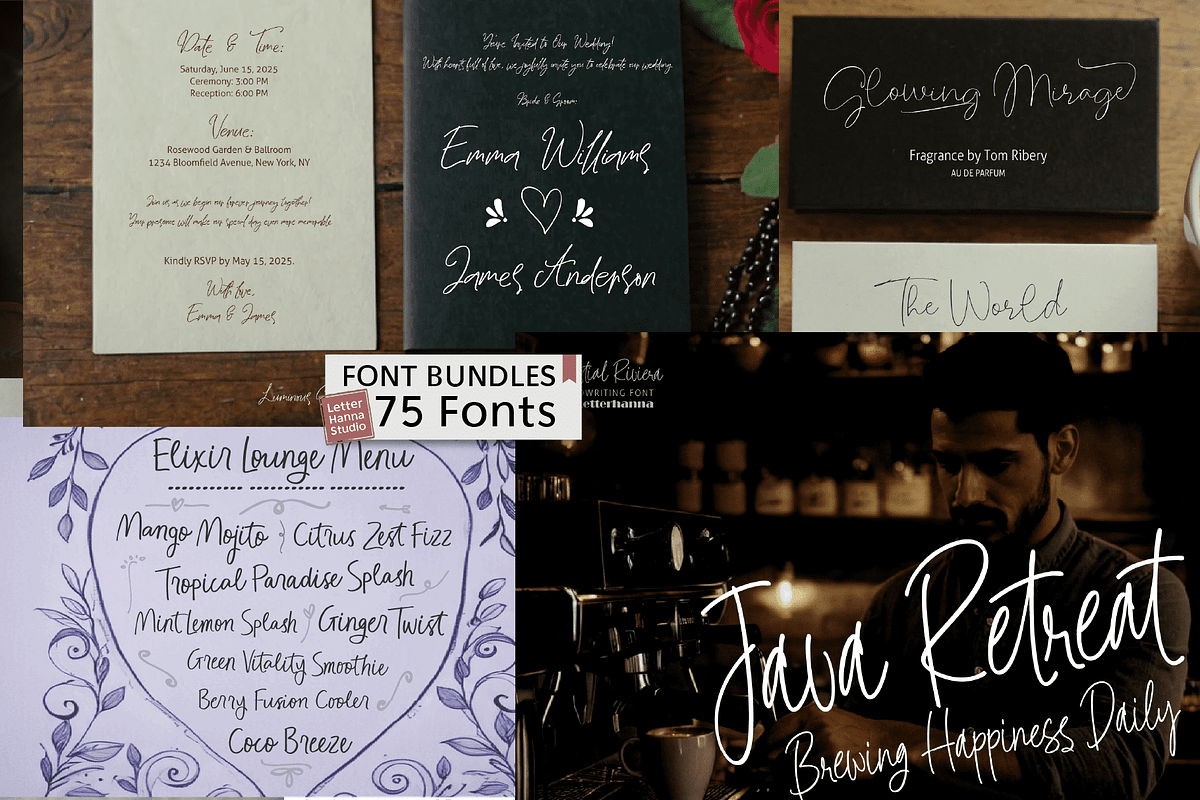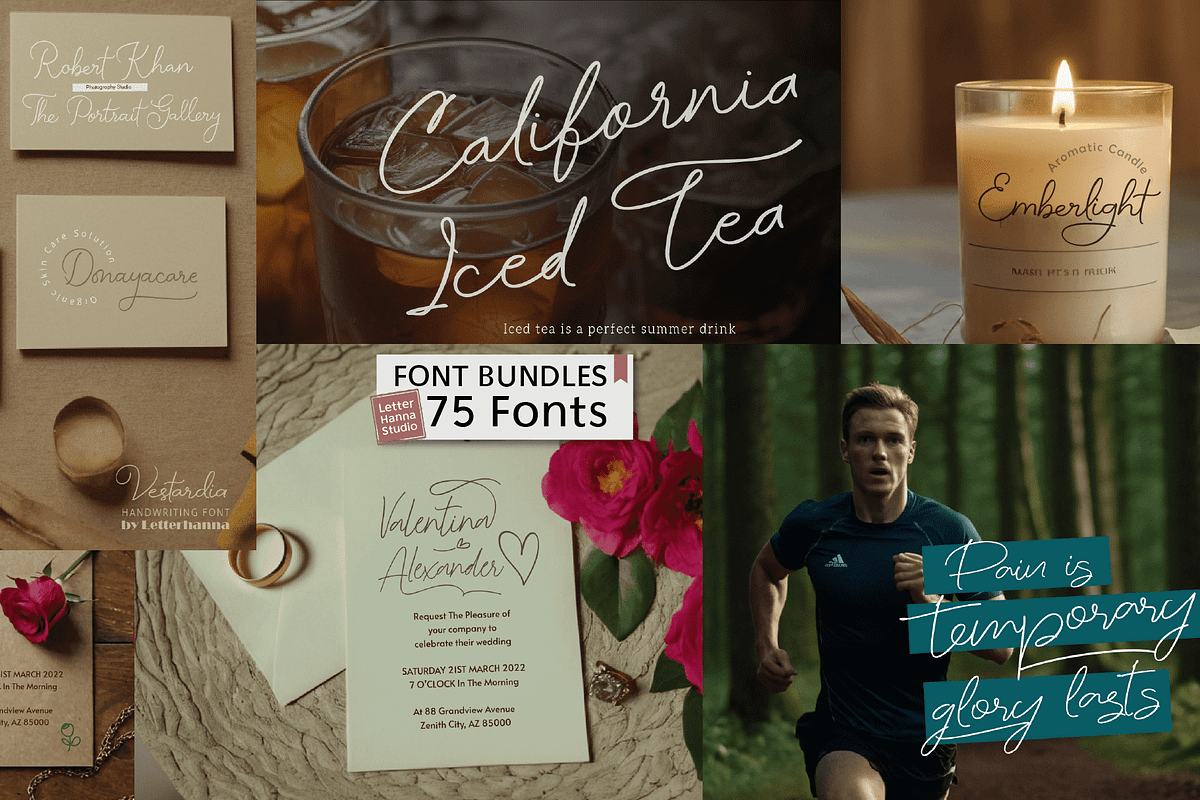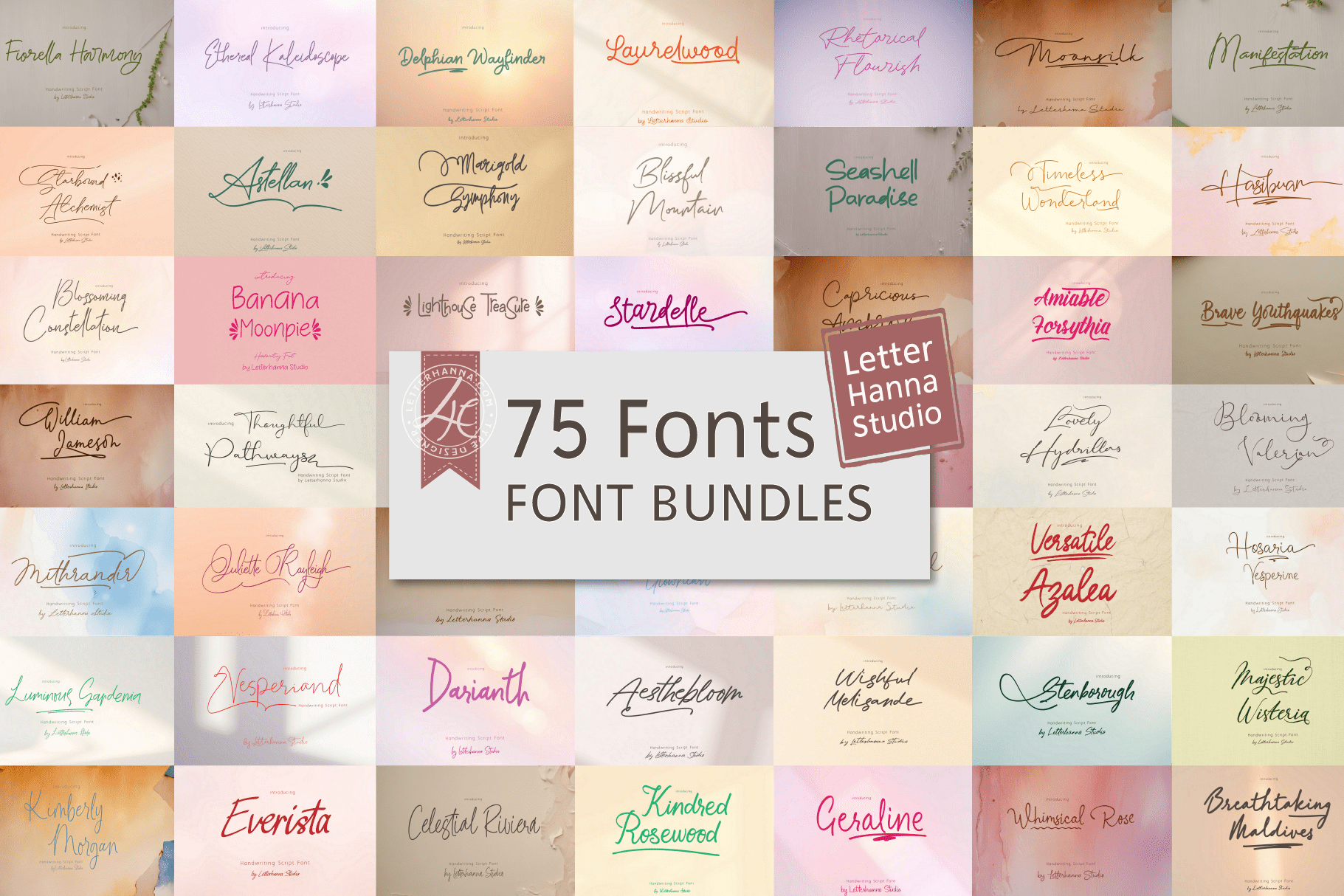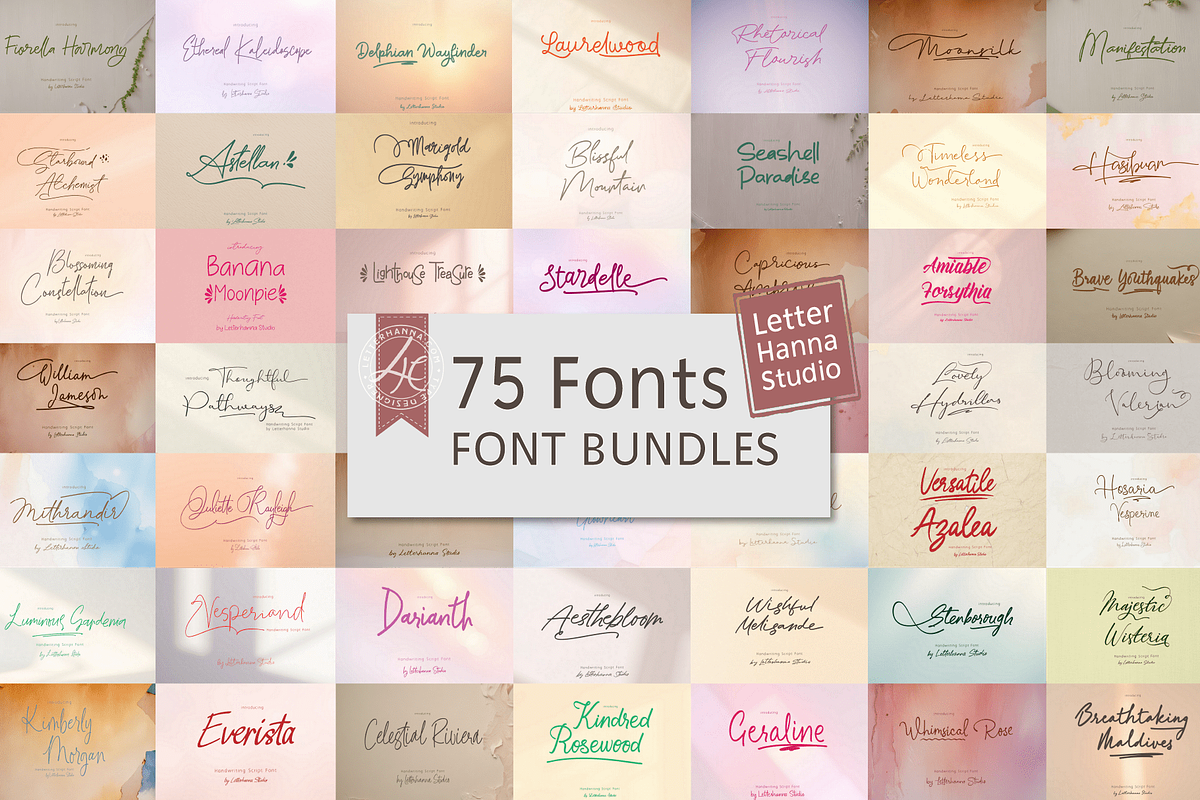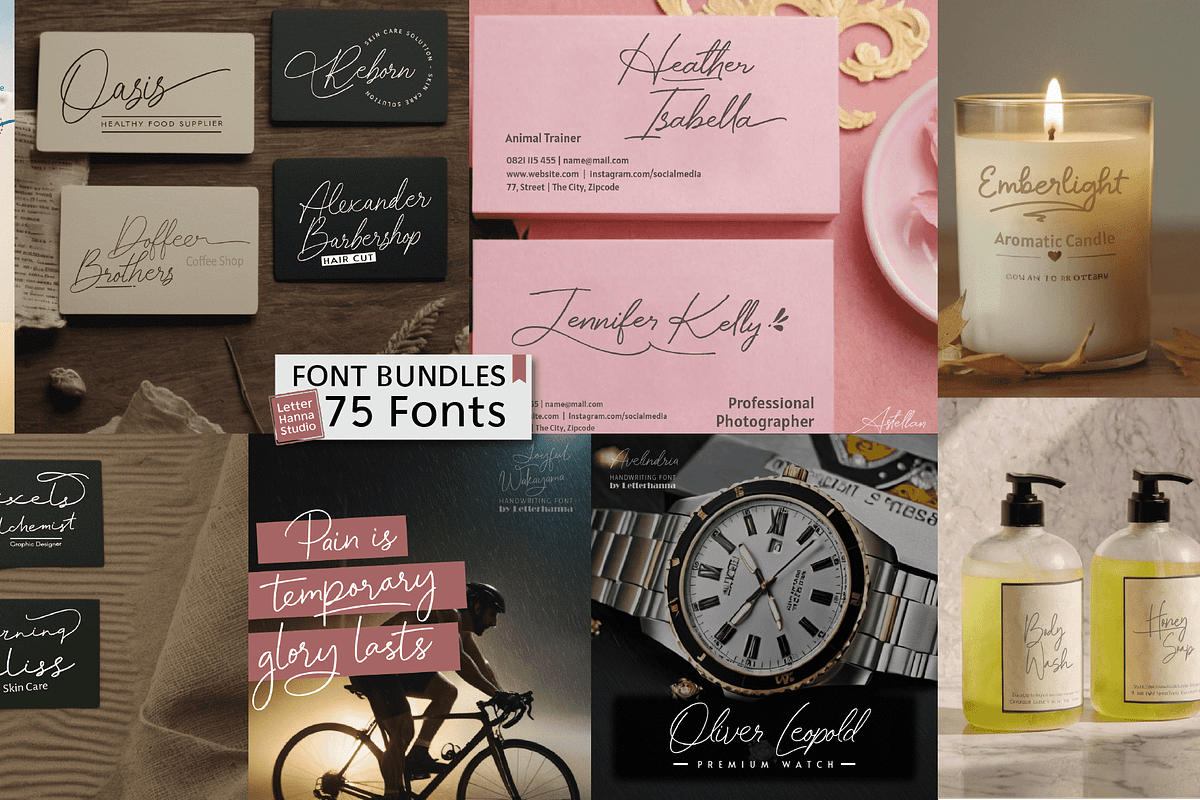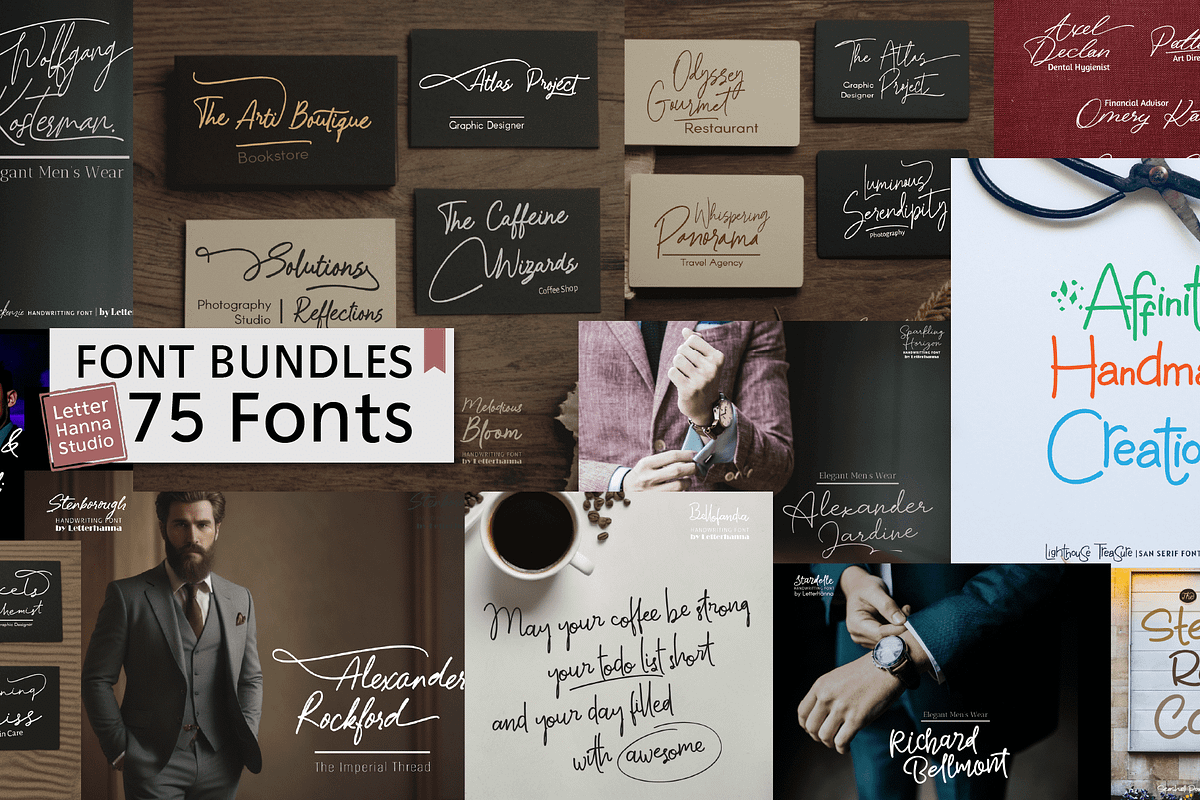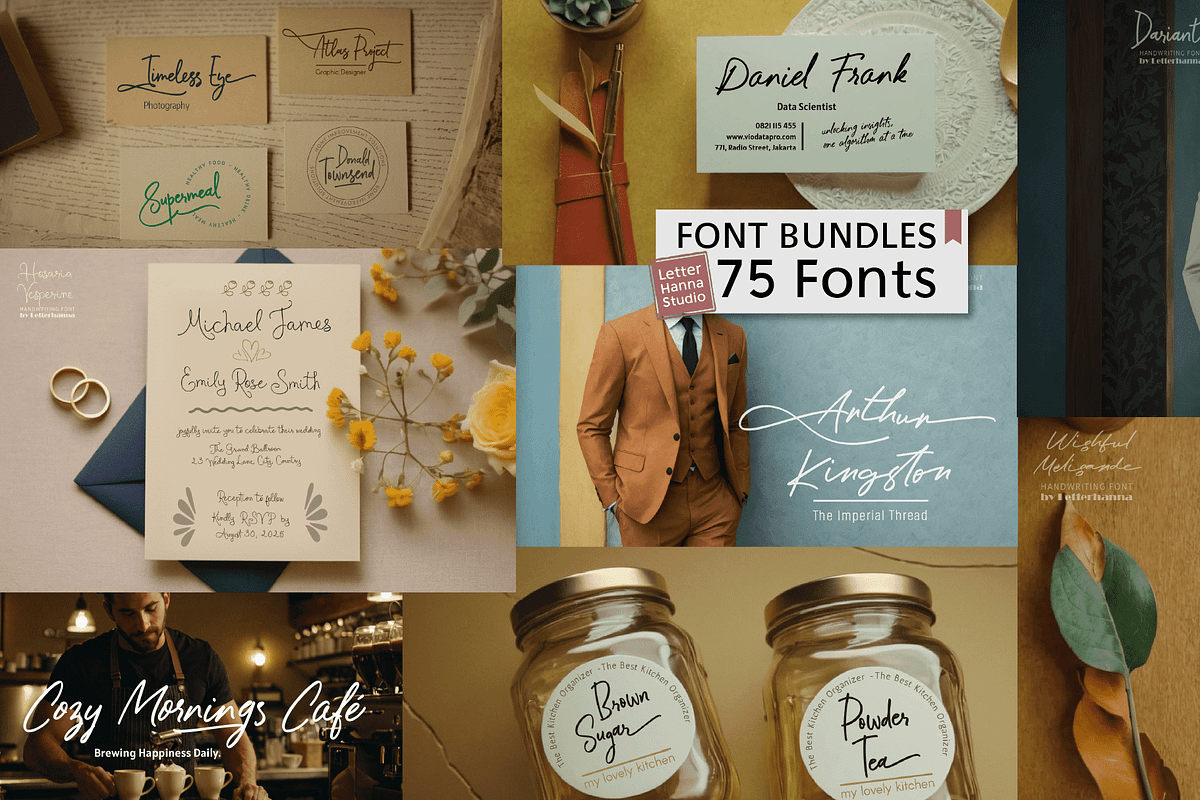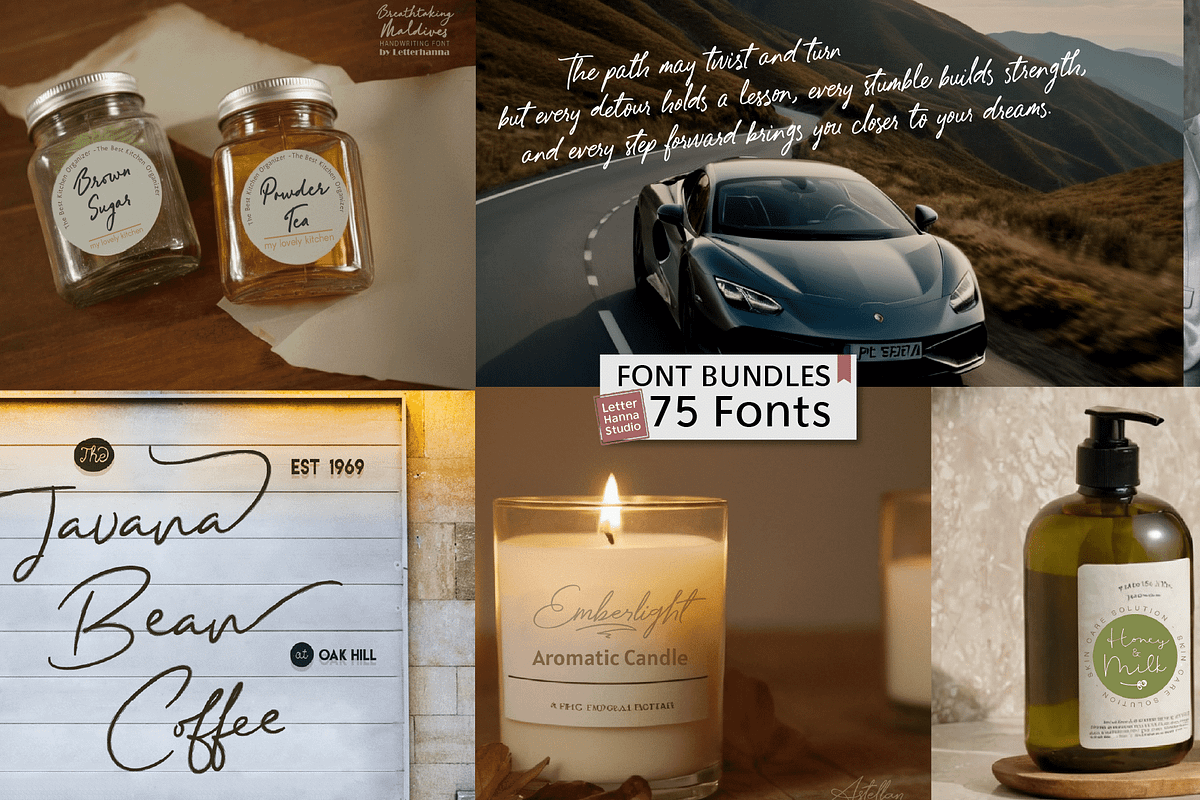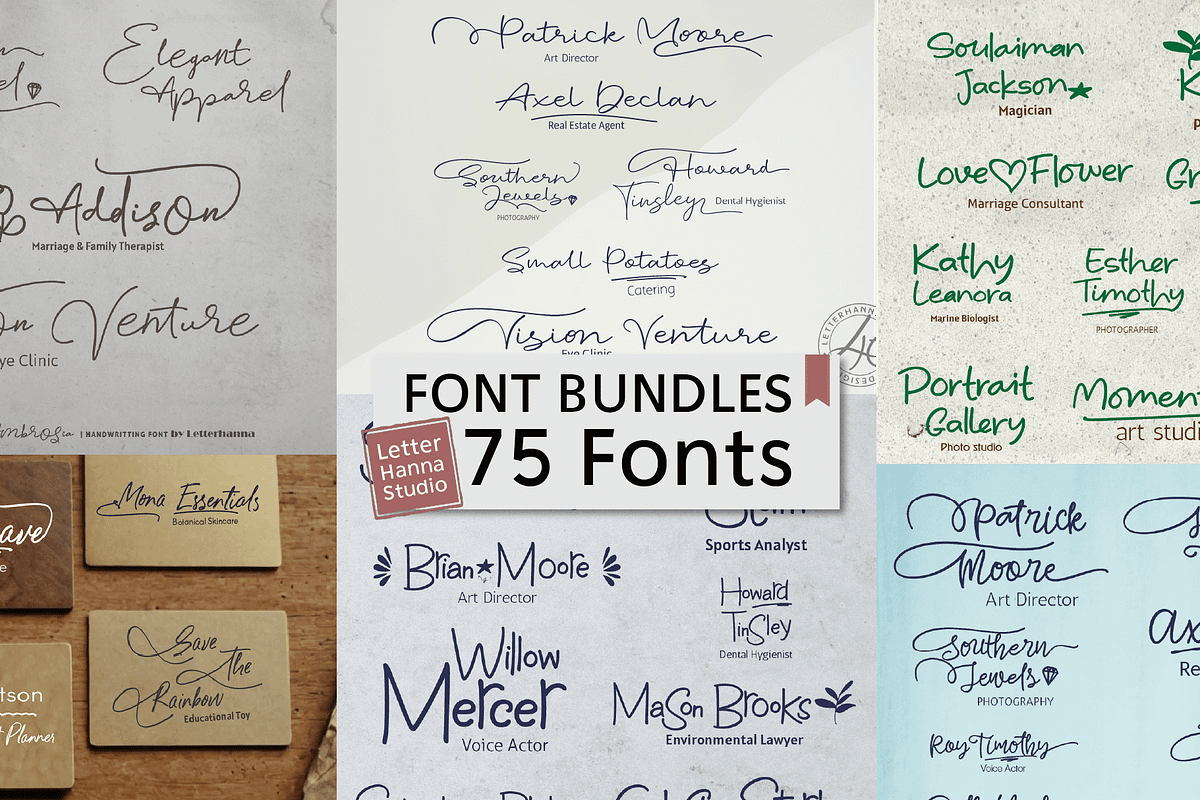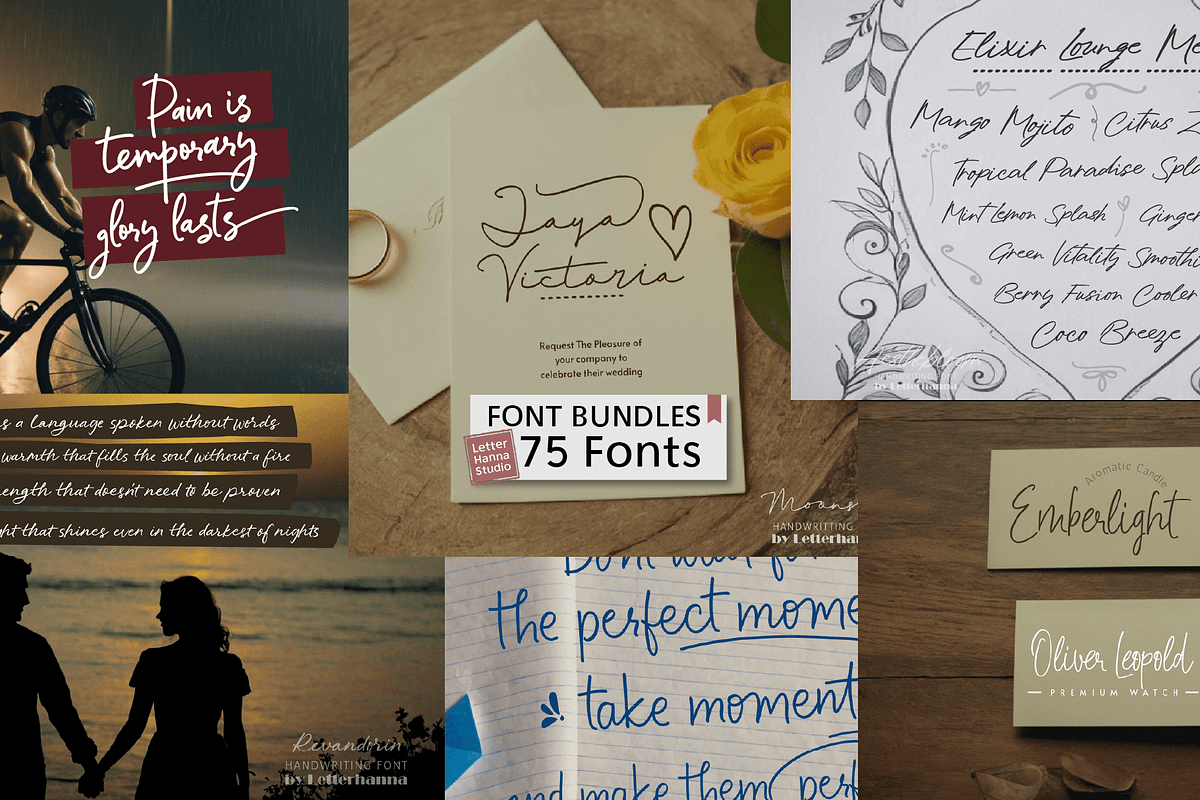
Mega 75 Handwriting Font Bundle
Get instant access to 75 beautiful handwritten fonts in one download. Perfect for crafters, designers, and creatives!
A collection of handwritten fonts with various styles which you can apply to your design projects. It comes equipped with special characters, ligatures, underline swashes, beginning and ending swashes, ornaments and multilingual support.
Geraline Font🔹https://creativemarket.com/letterhanna/291074708-Geraline-Font
Groovy Soumaya Font🔹https://creativemarket.com/letterhanna/7154327-Groovy-Soumaya-Font
Hasibuan Font🔹https://creativemarket.com/letterhanna/7253001-Hasibuan-Font
Hazelianth Font🔹https://creativemarket.com/letterhanna/278616783-Hazelianth-Font
Hesperantha Font🔹https://creativemarket.com/letterhanna/269595695-Hesperantha-Font
Hosaria Vesperine Handwriting Font🔹https://creativemarket.com/letterhanna/291468152-Hosaria-Vesperine-Handwriting-Font
Hosperity Font🔹https://creativemarket.com/letterhanna/13465016-Hosperity-Font
Jettiares Script Font🔹https://creativemarket.com/letterhanna/7177662-Jettiares-Script-Font
Joyful Wakayama Font🔹https://creativemarket.com/letterhanna/281004357-Joyful-Wakayama-Font
Juliette Rayleigh Font🔹https://creativemarket.com/letterhanna/279828609-Juliette-Rayleigh-Font
Kimberly Morgan Handwriting Font🔹https://creativemarket.com/letterhanna/291124618-Kimberly-Morgan-Handwriting-Font
Kindred Rosewood Font🔹https://creativemarket.com/letterhanna/291100262-Kindred-Rosewood-Font
Laurelwood🔹https://creativemarket.com/letterhanna/92653355-Laurelwood
Lighthouse Treasure Font🔹https://creativemarket.com/letterhanna/42230636-Lighthouse-Treasure-Font
Lovely Hydrillas Font🔹https://creativemarket.com/letterhanna/7154319-Lovely-Hydrillas-Font
Luminous Gardenia Handwriting Font🔹https://creativemarket.com/letterhanna/291159313-Luminous-Gardenia-Handwriting-Font
William Jameson Font🔹https://creativemarket.com/letterhanna/7357356-William-Jameson-Font
Wishful Melisande Handwriting Font🔹https://creativemarket.com/letterhanna/291240402-Wishful-Melisande-Handwriting-Font
Zara Amorett Font🔹https://creativemarket.com/letterhanna/7470544-Zara-Amorett-Font
This font is PUA encoded, which means you can access all of the glyphs and swashes with ease!
Beginning and ending swashes
Underline swashes
Stylistic alternate
Ornaments
Easy access swash just by using ligatures